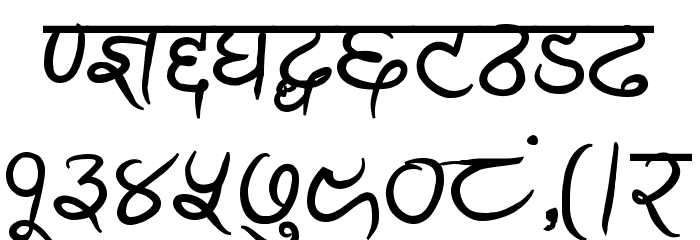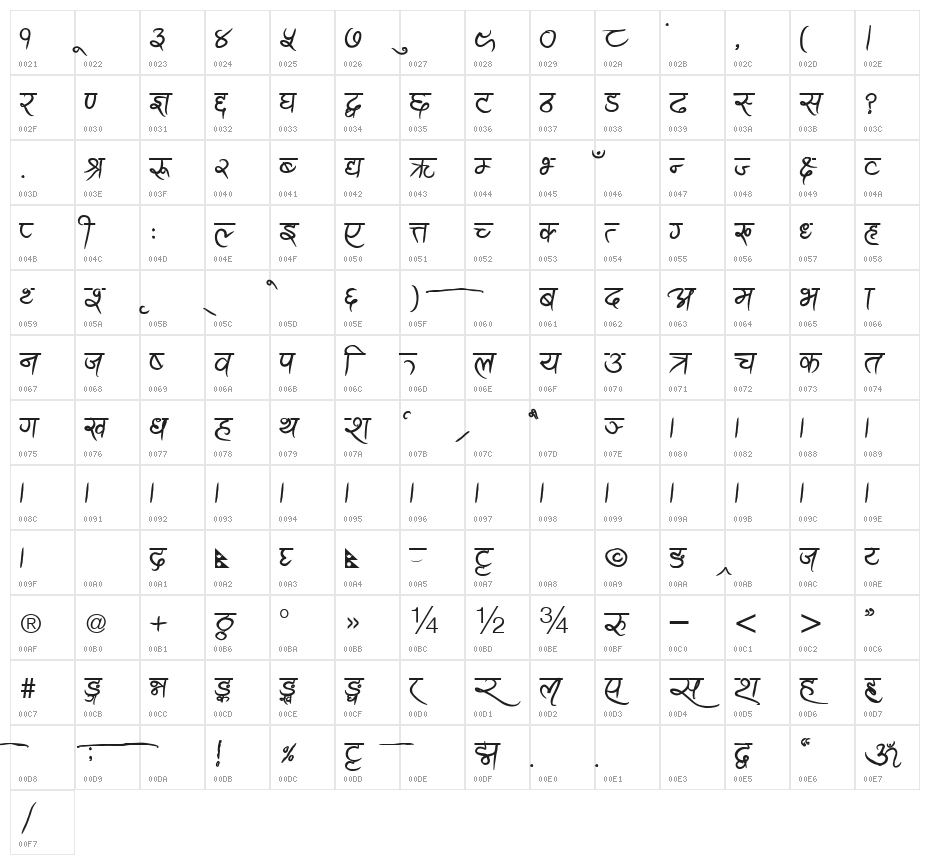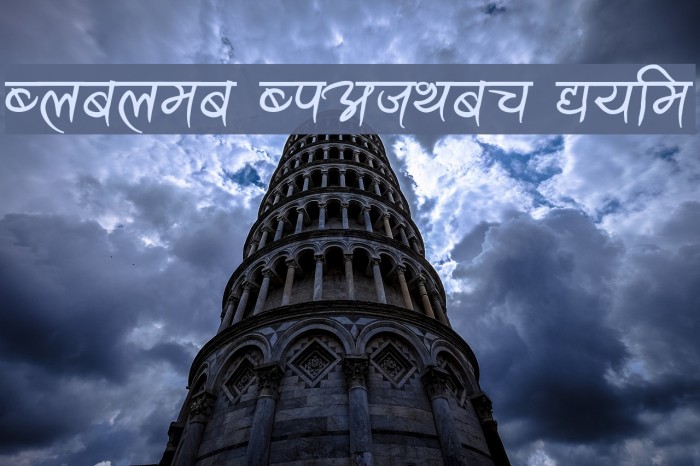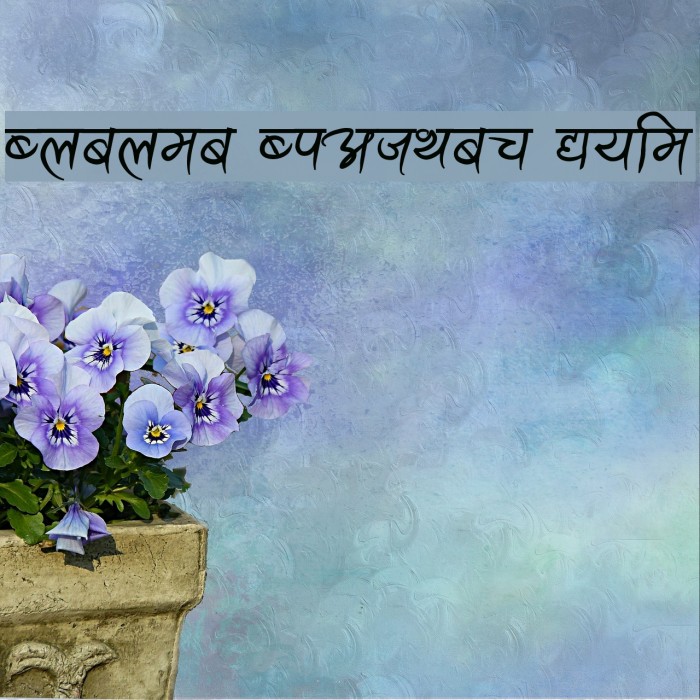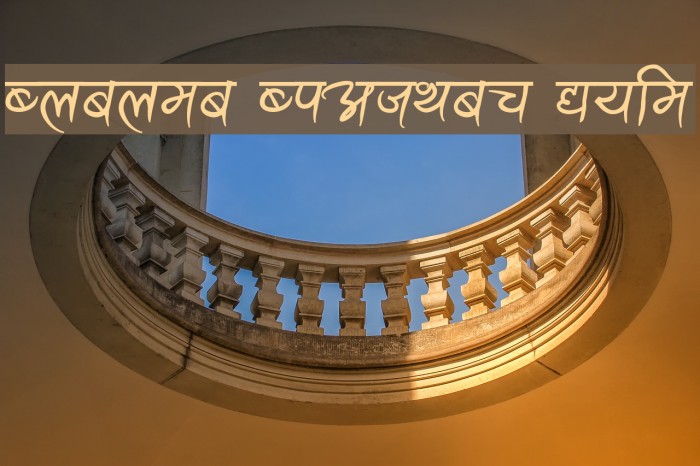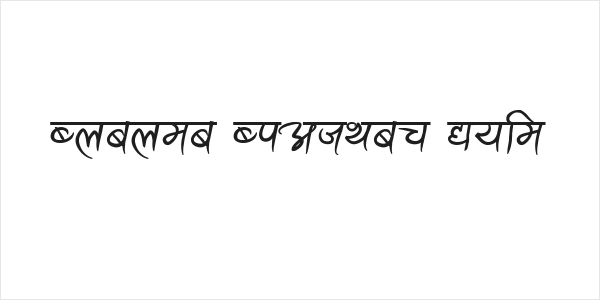
Ananda Akchyar Bold Font
Ananda Akchyar Bold Description
This font features a bold and expressive style, characterized by its flowing and dynamic strokes. The characters exhibit a traditional script-like appearance with a modern twist, making it suitable for both formal and creative applications. The strokes are thick and consistent, providing a strong visual impact. The script is elegant yet bold, with a sense of movement and fluidity that adds a unique charm. The font maintains a harmonious balance between the characters, ensuring readability while preserving its artistic flair.
| Overall Style | Traditional, Modern |
| Use Case | Logos, Invitations, Artistic designs |
| Proposed Projects | Ideal for cultural projects, artistic designs, invitations, and branding that require a touch of elegance and tradition. |